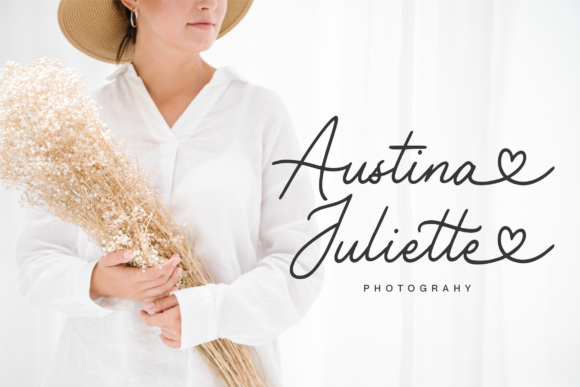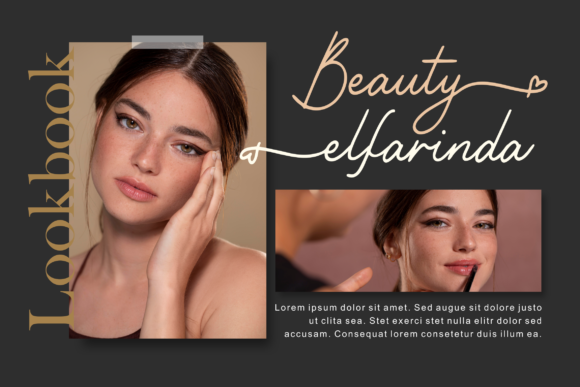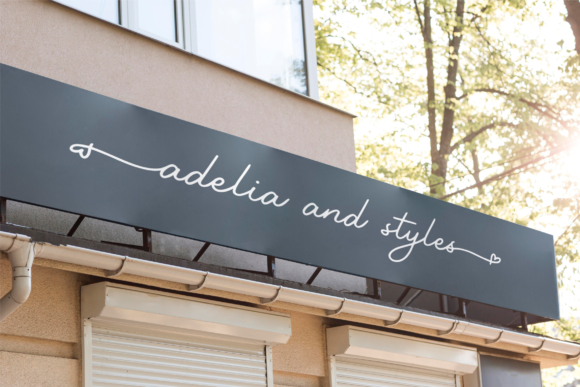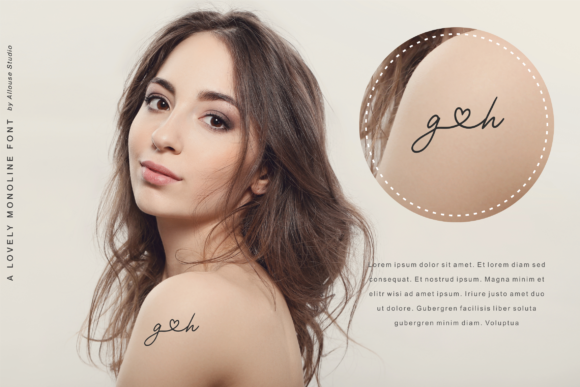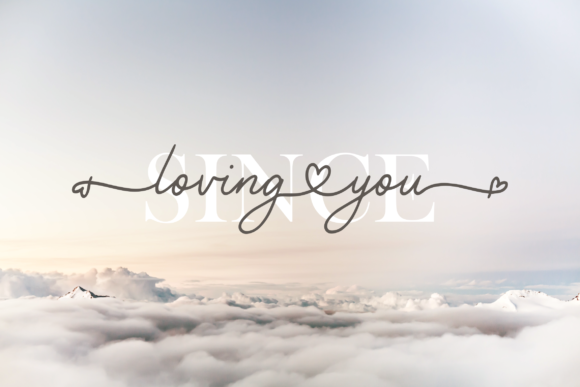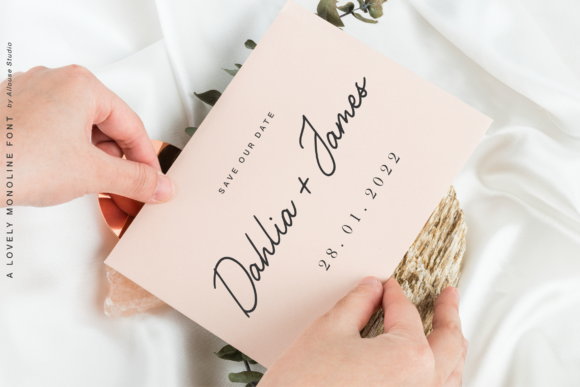
Introduction to Nittiest Fitting Font
Have you ever been working on a creative project, pouring your heart and soul into it, only to feel like something’s missing? The design is perfect, but the typography is holding you back? This is where the Nittiest Fitting Font comes in – a stylish and delicate script font that will elevate your project to the next level.
As designers, we’re always on the lookout for high-quality design resources that will make our work stand out. And that’s exactly what the Nittiest Fitting Font offers – a free download that’s perfect for product packaging, branding projects, magazine covers, social media, weddings, or just adding a touch of elegance to your design.
Key Features of Nittiest Fitting Font
- Unique and stylish design ideal for creative projects requiring a modern touch
- Perfect for designers looking for a nittiest fitting font to elevate their designs and stand out from the crowd
Honest Review: Nittiest Fitting Font
I recently stumbled upon the Nittiest Fitting Font, and I must say, it’s a gem. This font is perfect for any creative project that requires a touch of elegance and sophistication. As a designer, I appreciate the high quality of the font, which makes it a valuable addition to my design resource collection.
- ✨ High quality design that exudes professionalism
- ✨ Easy to use and customize
- ⚠️ The font lacks a transparent background option, which can be a bit limiting for designers who require a seamless integration with their designs
- ⚠️ The font family is relatively small, which can make it difficult to find the perfect fit for certain projects
Overall, I’m impressed with the Nittiest Fitting Font. It’s a great resource for designers who want to add a touch of class to their creative projects. While it has some limitations, its high quality design and easy customization make it a valuable addition to any design resource collection.
Tips for Getting the Most Out of Nittiest Fitting Font
Use the Nittiest Fitting Font for high-quality designs, such as posters, flyers, and brochures. Experiment with different font sizes and styles to create visual interest. You can also use the font with other design elements, such as images and shapes, to create a cohesive design.
The Nittiest Fitting Font is ideal for creative projects, such as branding, marketing materials, and social media graphics. You can use the font to create eye-catching headlines, titles, and paragraphs. The font is also great for designing free downloads, such as printable art and templates.